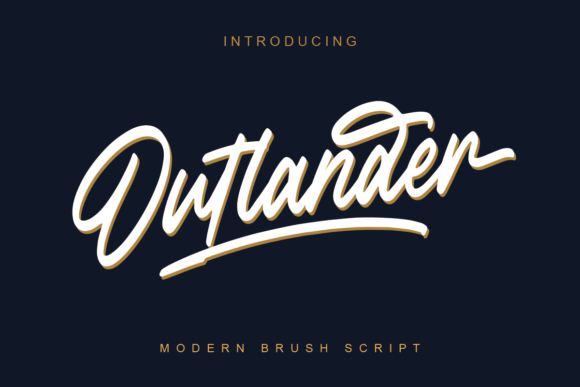
Dive into the realm of typography with Outlander Brush Script, a captivating handwritten font that exudes vintage charm and effortless flow. Crafted by the skilled artisans at Geranium.co, this script font is a visual masterpiece that will add a touch of elegance and personality to your creative projects.
Outlander Brush Script's meticulously designed characters dance across the page, capturing the essence of handwritten beauty. Its delicate strokes and organic curves evoke a sense of nostalgia, making it perfect for projects seeking a timeless, classic aesthetic. Whether you're crafting wedding invitations, designing logos, creating social media graphics, or adding a personal touch to your digital art, Outlander Brush Script is the perfect choice for adding a touch of sophistication and charm.
With its versatile nature, Outlander Brush Script effortlessly adapts to a wide range of design styles. Its vintage charm lends itself beautifully to projects with a retro or rustic aesthetic, while its flowing appearance adds a touch of elegance to modern designs. Experiment with different colors, textures, and graphic elements to create truly unique and captivating visuals that will leave a lasting impression.
Unleash your creativity and let Outlander Brush Script guide you on a journey of artistic expression. This remarkable font is more than just a tool; it's a gateway to a world of visual storytelling, where your ideas take center stage and captivate audiences with their timeless beauty. Download Outlander Brush Script today and embark on a creative adventure that will leave you inspired and exhilarated.